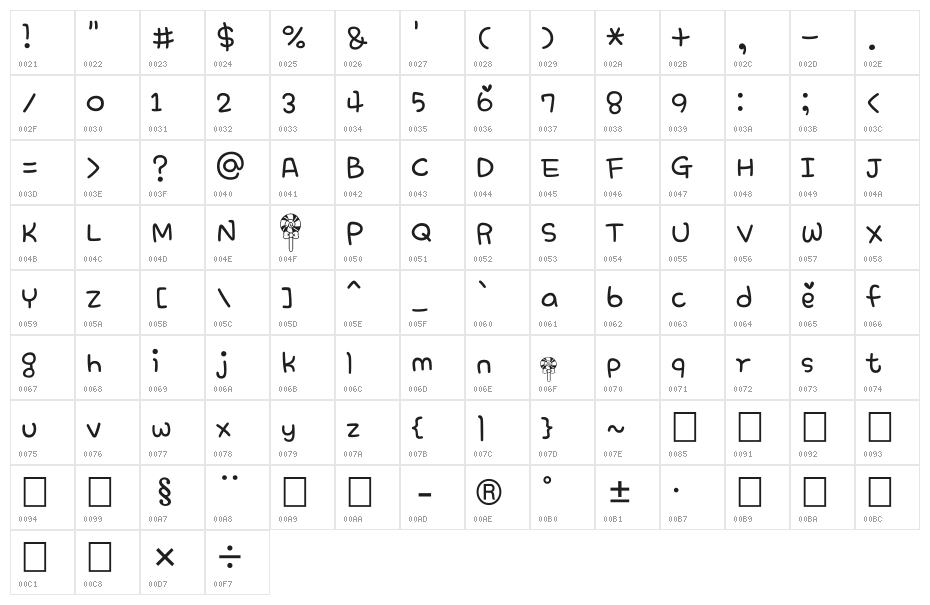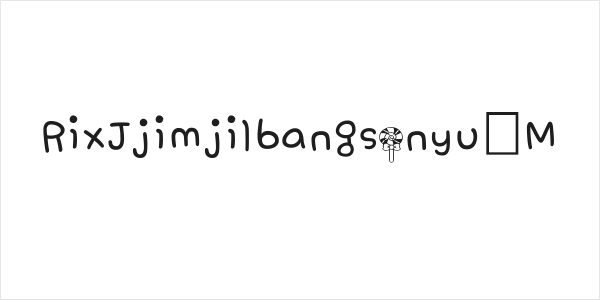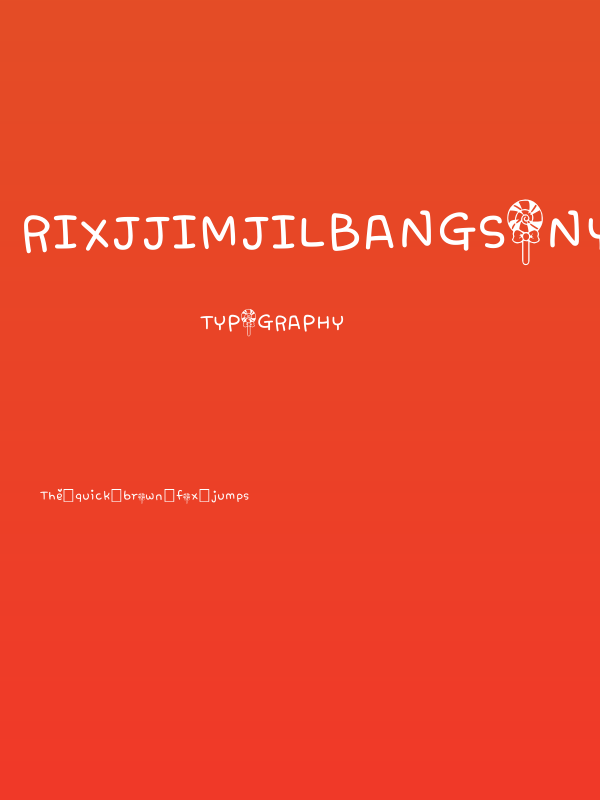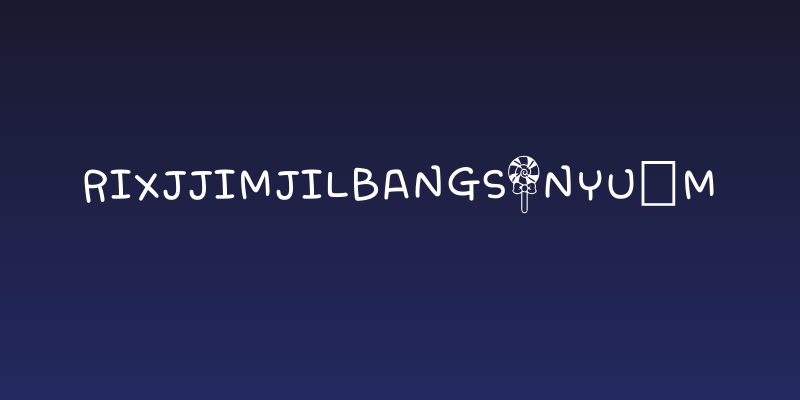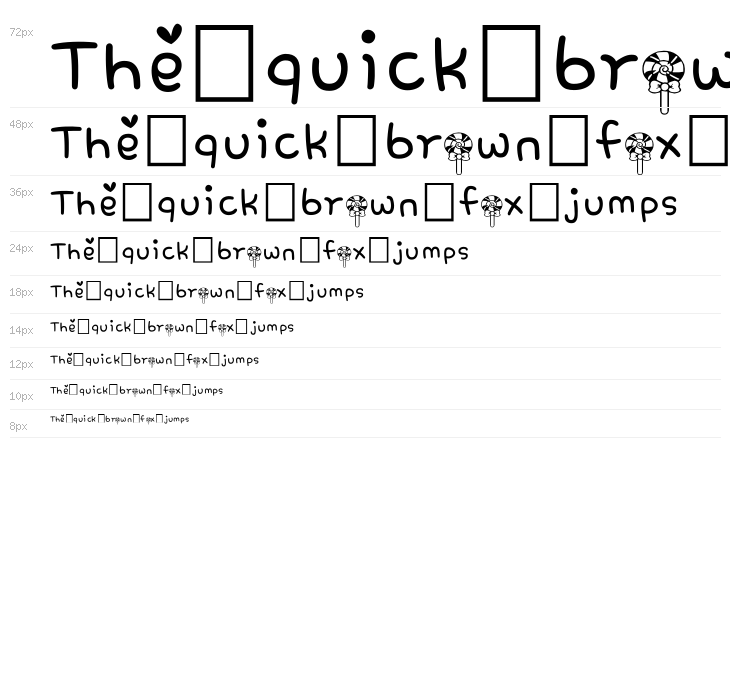
RixJjimjilbangsonyu M Font
RixJjimjilbangsonyu M Description
This playful and whimsical font features a handwritten style with a unique, casual flair. The characters are rounded and slightly irregular, giving them a friendly and approachable appearance. The uppercase letters are bold and prominent, while the lowercase letters maintain a consistent flow with charming embellishments, such as small loops and curves. The numbers are equally playful, with a consistent stroke width that matches the letters. Special characters are creatively designed, adding to the font's overall charm. This font is perfect for projects that require a fun and informal touch.
| Proposed Projects | Ideal for children's books, playful branding, greeting cards, and informal invitations. |